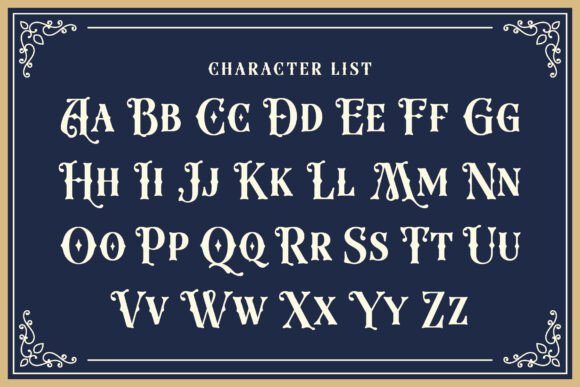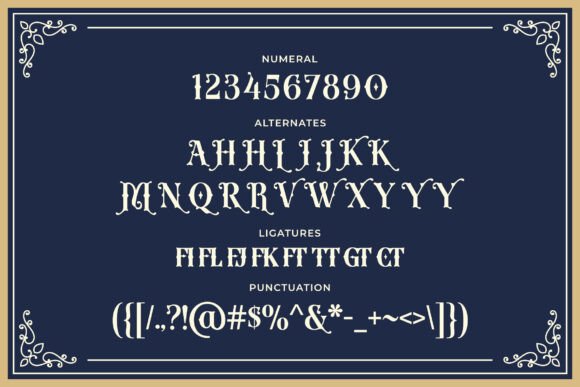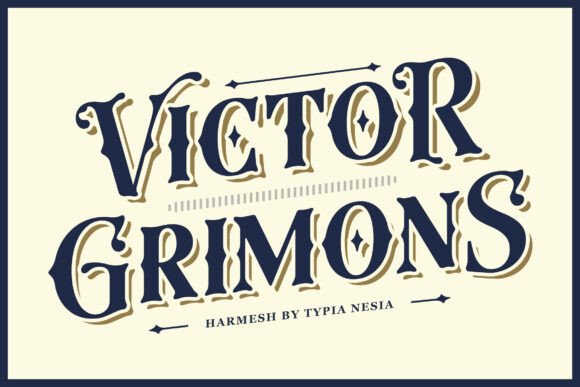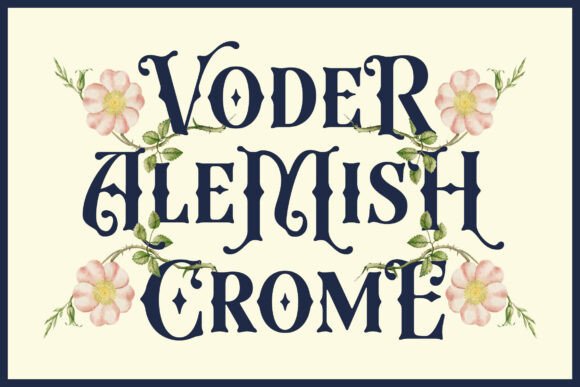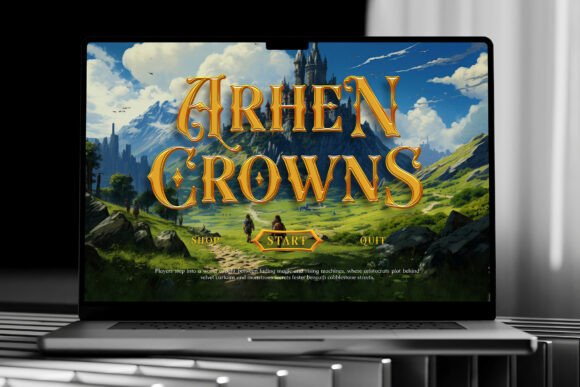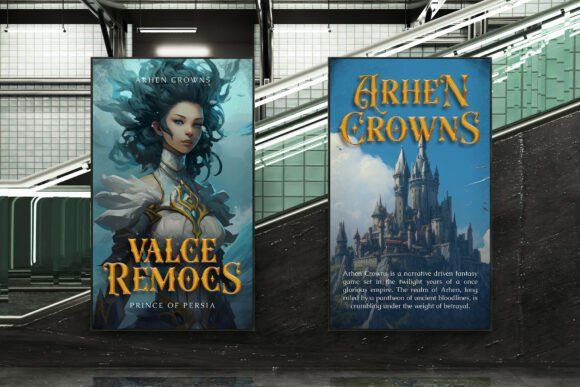
Harmesh Font: A Magical & Ornate Fantasy Fairytale Typeface
Are you looking for a typeface that can transport your designs into a world of magic and elegance? Look no further than the Harmesh font, a stunning fantasy fairytale font that is perfect for creating eye-catching game titles, enchanting book covers, sophisticated craft branding, and more. With its ornate letterforms, decorative ligatures, and a full set of alternate characters, this font is sure to add a touch of whimsy and vintage charm to any project.
Inspired by Classic Fairytales and Medieval Aesthetics
The Harmesh font is inspired by classic fairytales and medieval aesthetics, making it a perfect fit for designers who want to create typography that is both powerful and enchanting. The font’s ornate letterforms and decorative ligatures evoke a sense of nostalgia and romance, while its alternate characters and swashes provide endless possibilities for creative expression.
The Harmesh font is incredibly versatile and can be used for a wide range of design projects, including:
- Game titles: Add a touch of magic to your game titles with the Harmesh font’s ornate letterforms and decorative ligatures.
- Book covers: Create enchanting book covers that will stand out on the shelves with the Harmesh font’s elegant and sophisticated design.
- Craft branding: Add a touch of vintage charm to your craft branding with the Harmesh font’s ornate letterforms and alternate characters.
- Posters and advertising: Create eye-catching posters and ads that will grab attention with the Harmesh font’s bold and elegant design.
- Logo design: Create a unique and memorable logo with the Harmesh font’s decorative ligatures and alternate characters.
- Packaging and merchandise: Add a touch of magic to your packaging and merchandise with the Harmesh font’s ornate letterforms and swashes.
The Harmesh font offers a range of features and benefits that make it a must-have for designers and crafters, including:
- Ornate letterforms and decorative ligatures for added elegance and sophistication
- A full set of alternate characters for creative expression
- Perfect for a wide range of design projects, from game titles to book covers and craft branding
- Inspired by classic fairytales and medieval aesthetics for a unique and enchanting design
If you’re looking for a typeface that can add a touch of magic and elegance to your designs, look no further than the Harmesh font. With its ornate letterforms, decorative ligatures, and a full set of alternate characters, this font is perfect for designers and crafters who want to create typography that is both powerful and enchanting. Whether you’re working on a game title, book cover, or craft branding project, the Harmesh font is sure to impress.